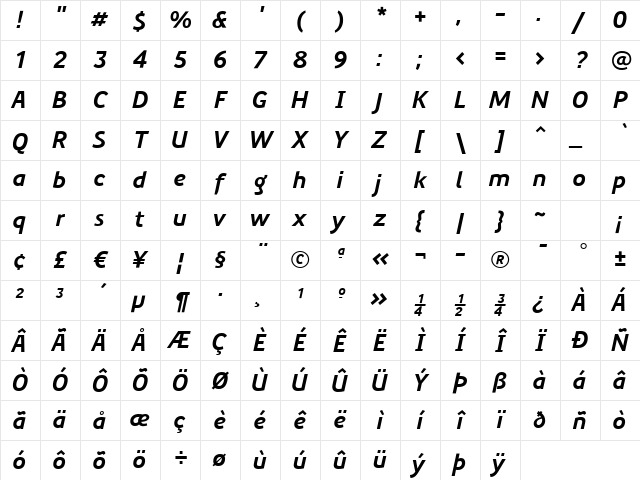
PreciousSans Bold Italic
Design Context for PreciousSans
PreciousSans is a composed and adaptable typeface that performs quietly and consistently across a wide range of design contexts. The slanted form adds forward momentum and visual energy. Its bold stroke weight gives it real presence on the page.
Pro Tip: Use PreciousSans for emphasis, pull quotes, and subheadings where its slanted energy can add rhythm to the layout.